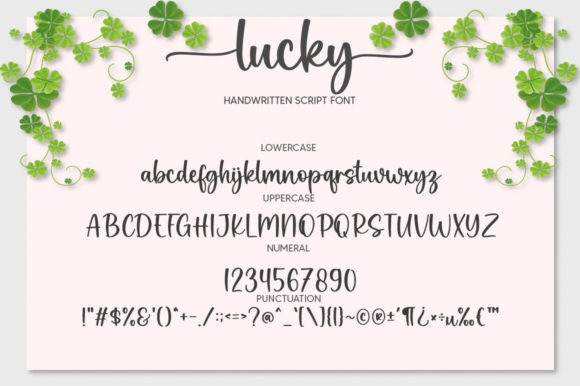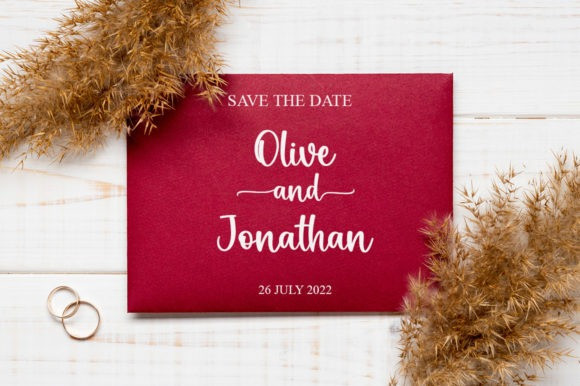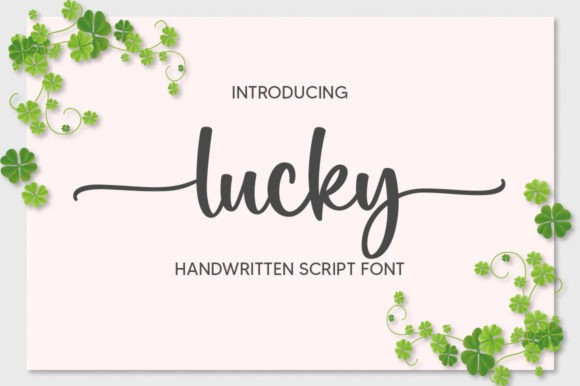
Lucky Font
Lucky Font is a delicate, elegant, and flowing handwritten font. It has beautiful and well-balanced characters and as a result, it matches a wide pool of designs. Lucky is PUA encoded, which means you can access all of the glyphs and swashes with ease!